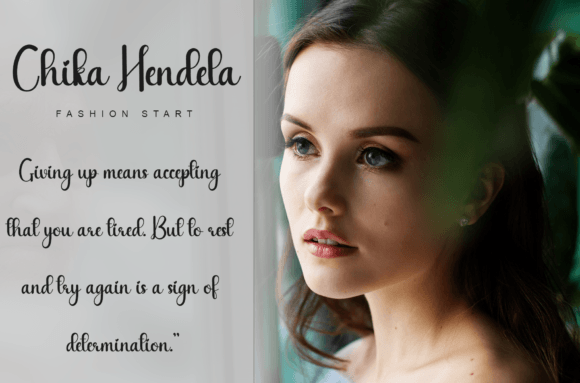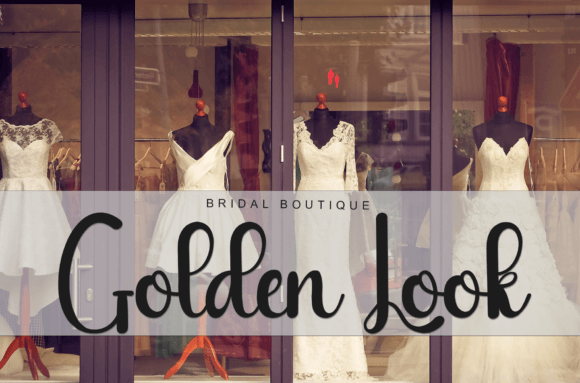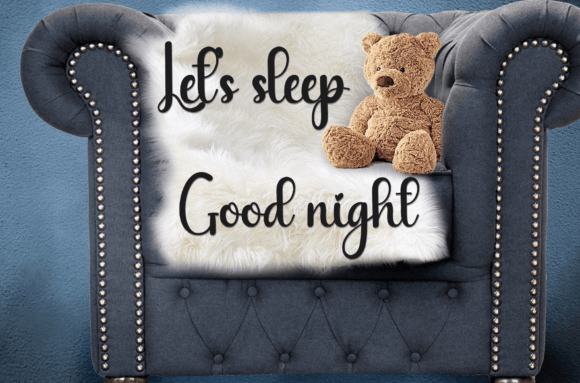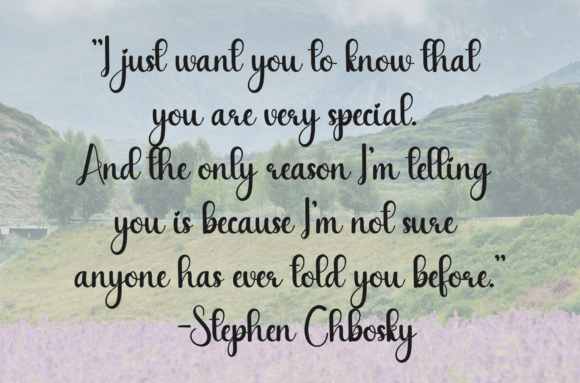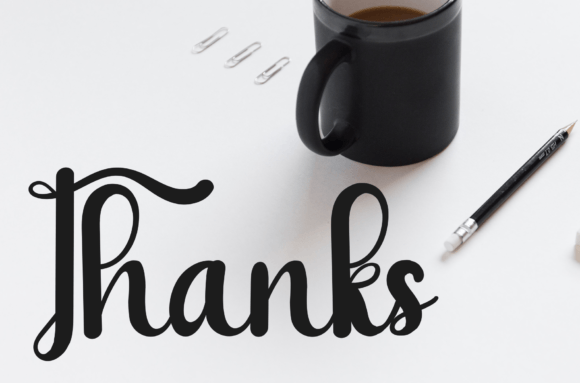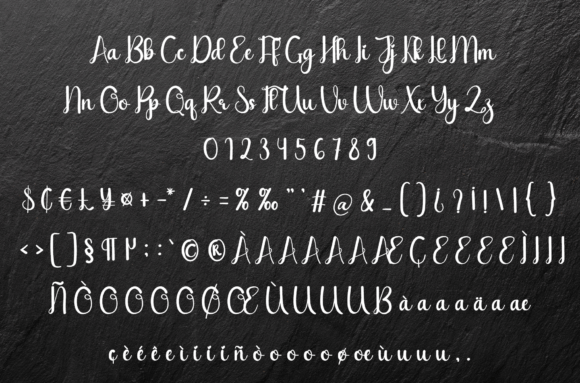
Saturday Holiday Font
About Saturday Holiday Font
Saturday Holidayfont is a simple, friendly handwritten typeface designed to bring warmth and charm to your creative projects. This font’s inviting style makes it perfect for a wide variety of uses, from crafting and digital design to presentations and greeting cards. If you’re looking for a font that feels personal and approachable, Saturday Holidayfont is an excellent choice that suits any occasion.
A Simple and Friendly Handwritten Font
With its clean, natural strokes, Saturday Holidayfont captures the essence of genuine handwriting. Its simplicity allows it to blend seamlessly into your designs while adding a cozy, homemade touch. Whether you’re crafting a heartfelt message or designing a playful social media post, this font’s friendly character helps your projects connect with your audience on a personal level.
Versatile Use for Various Projects
Saturday Holidayfont adapts beautifully across many design formats. It is ideal for craft projects such as scrapbooking, homemade cards, and product labels. For digital designers, the font brings a fresh, human touch to websites, presentations, and social media graphics. Its legibility ensures that whether it’s used for headlines or body text, your content remains clear and engaging.
Clean and Readable Design
Despite its casual style, Saturday Holidayfont maintains excellent readability. The letterforms are balanced and clear, making this font suitable for both print and digital platforms. This blend of style and function makes Saturday Holidayfont a versatile choice for designers seeking a handwritten look without sacrificing clarity.
Why Choose Saturday Holiday Font?
Choosing Saturday Holidayfont means selecting a typeface that adds a friendly, handcrafted feel to your projects while keeping your message clear. Its adaptability makes it perfect for everything from professional branding to casual invitations. This font invites creativity and warmth, helping you create designs that feel authentic and welcoming.
Enhance Your Designs with Saturday Holiday Font
Incorporate Saturday Holidayfont into your font library and discover how its simple, approachable style can elevate your work. Whether you’re working on crafts, digital presentations, or greeting cards, this font adds a personal touch that makes your designs stand out. Saturday Holidayfont offers a timeless, friendly handwritten style that works wonderfully across all your creative projects.